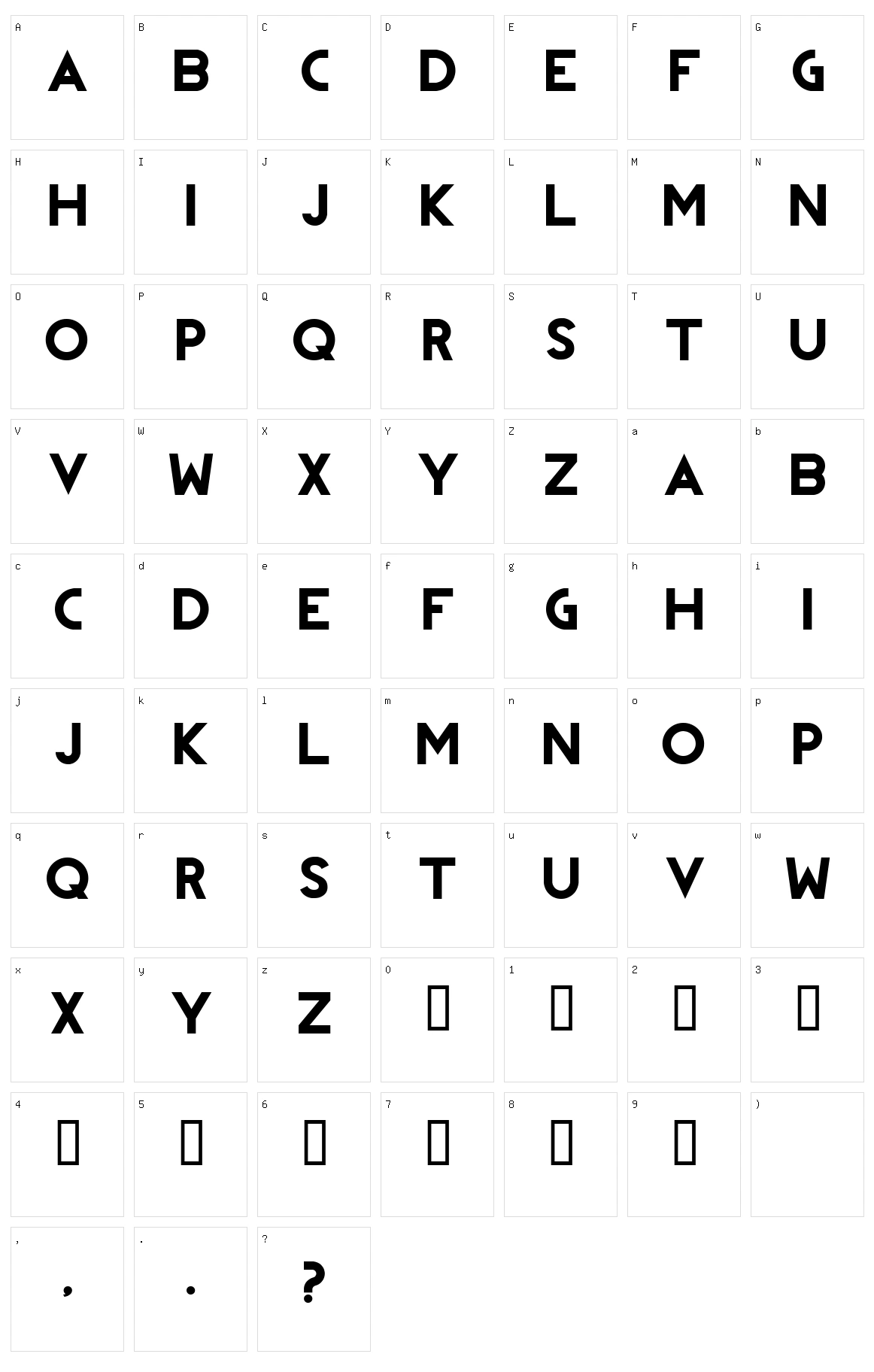
The free font Revolution is carefully designed by Saji Johnny Kundukulam, showcasing a thoughtful balance of creativity and usability and falls under the Sans serif font style. When you download the ZIP file, it contains only 8.73 KB of font files, making it lightweight and quick to download. Please review the license details below to understand permitted usage and distribution rights. If license information is not available, we recommend using this font for personal projects only or contacting the author directly for commercial usage permissions.